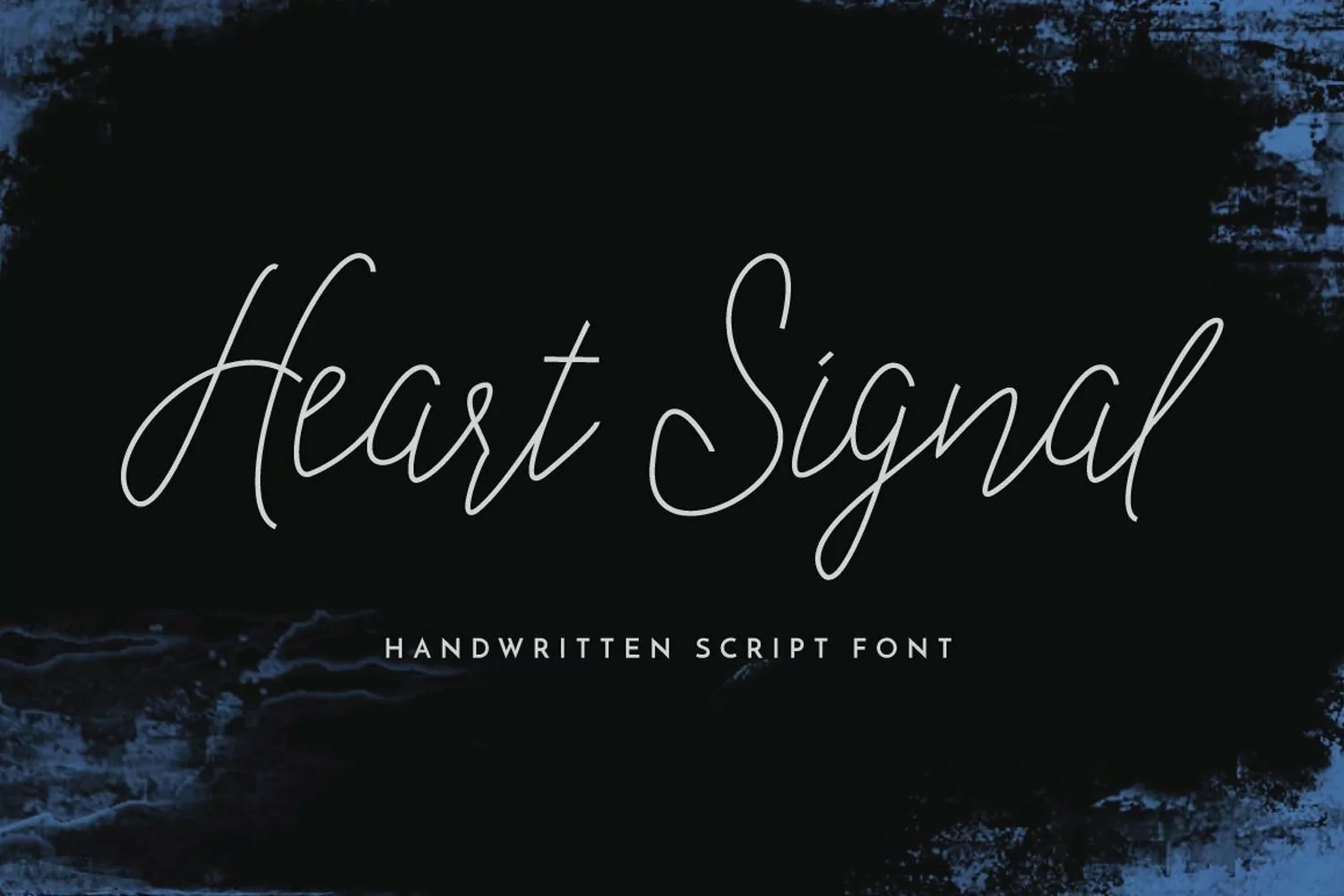
Web Font Heart Signal Typeface
Introducing a signature style of Heart Signal Script Typeface! A modern classy handwriting font that gives you a signature style with just a few moves ;)
Handwritten upper and lowercase characters, numerals, and punctuations. Don't forget of completely new set of the alternative for get the best result of combinations
Heart Signal is perfect for logos, websites, invitations, greeting cards, magazines, business cards, packaging and many more! Be a perfect in a minute and start creating modern designs...